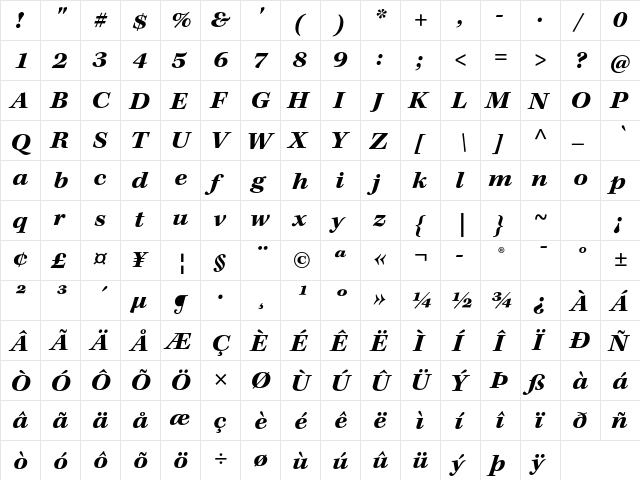
Kepler Std Bold Extended Italic Font Preview
| Designer | Robert Slimbach |
Design Context for Kepler Std Typeface
Kepler Std takes a measured approach to typography — its balanced proportions and neutral character make it a reliable workhorse for both digital and print work. Its italic angle brings a sense of urgency and motion to the letterforms. The heavy weight commands attention and anchors typographic hierarchies.
Pro Tip: Try Kepler Std for annotation and caption copy alongside an upright companion — the contrast in angle creates a dynamic but ordered typographic system.